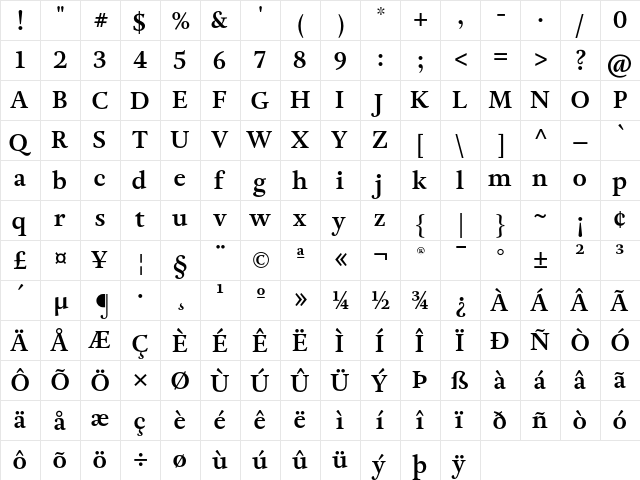
Adriane Text Bold
| Foundry | Marconi Lima / Typefolio Digital Foundry |
| Designer | Marconi Gomes Lima |
Design Context for Adriane Text Typeface
Adriane Text takes a measured approach to typography — its balanced proportions and neutral character make it a reliable workhorse for both digital and print work. Its bold stroke weight gives it real presence on the page.